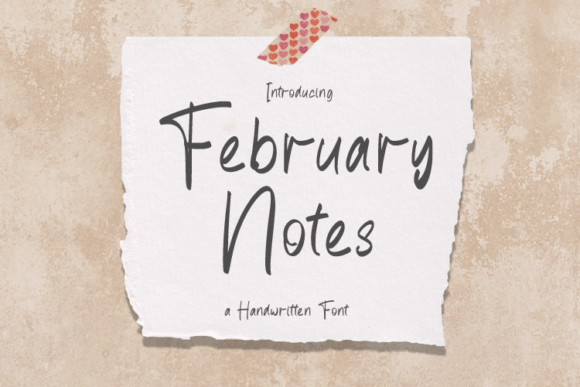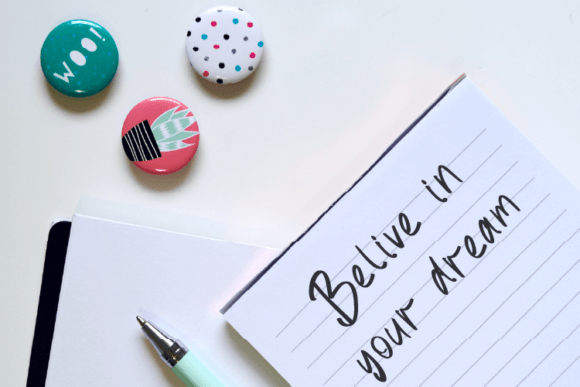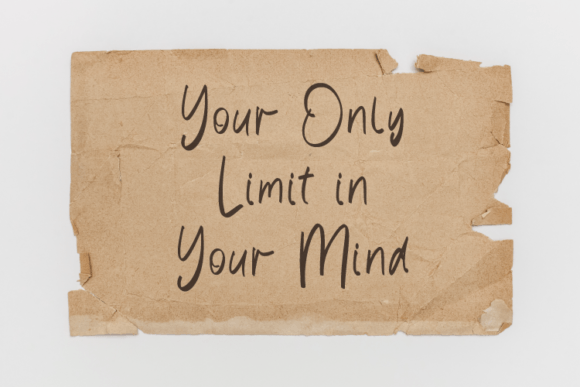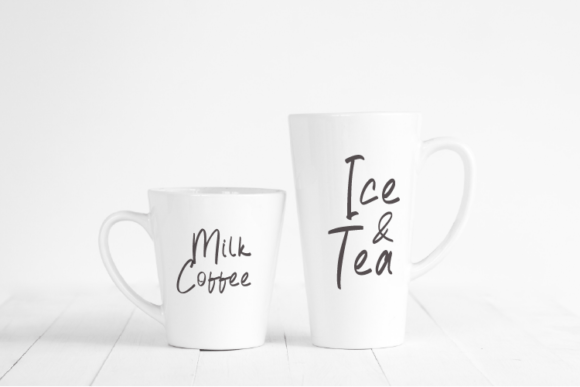
About February Notes
February Notes is a sweet and delicate handwritten font. Dainty and joyful, this font will be ideal for writing wedding invitations, cards, or any other design that may need a romantic, personalized touch! Don’t hesitate to add it to your creative projects, and be amazed by the fantastic results!